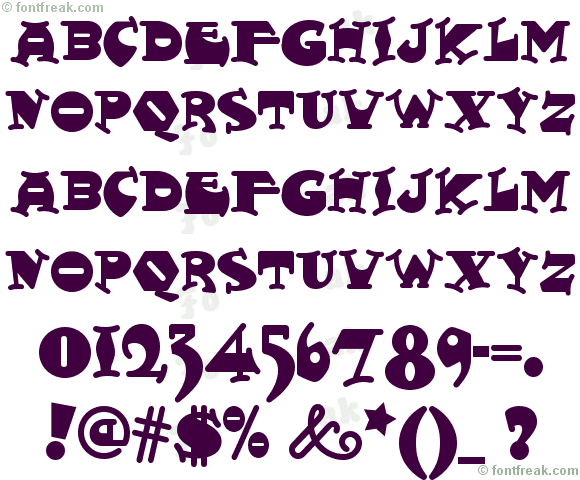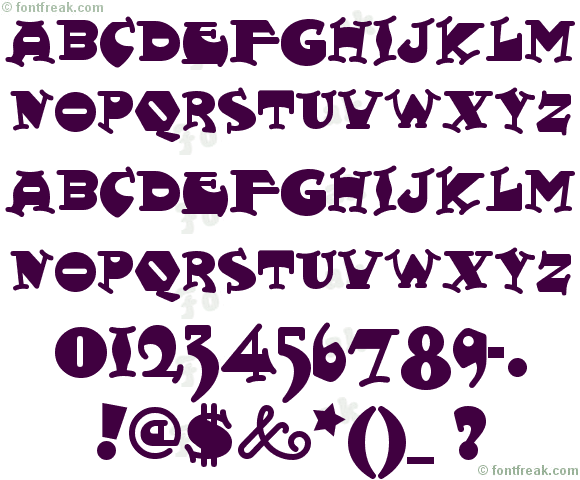
FattySnaxNF
Fatty Snax NF
About FattySnaxNF
FattySnaxNF is a unique display font designed by Nick Curtis, perfect for those looking to add a playful and bold touch to their projects. This typeface falls into the decorative category, characterized by its chunky, exaggerated letterforms that convey a sense of fun and whimsy. The strokes are thick and uniform, creating a strong visual presence, while the playful curves and quirky details in certain letters add a distinct character to the font. The generous spacing between the characters enhances readability, making it suitable for various design applications.
Ideal use cases for the FattySnaxNF font include eye-catching movie posters, vibrant restaurant menus, and playful branding for children's products. Its unique style can also make wedding invitations stand out, providing a fun twist on traditional typography. Small business owners looking to capture attention on social media or promotional materials will find this font to be an excellent choice. Graphic designers can leverage its distinctive aesthetic to create memorable logos and event flyers that resonate with their target audience.
Author Nick Curtis